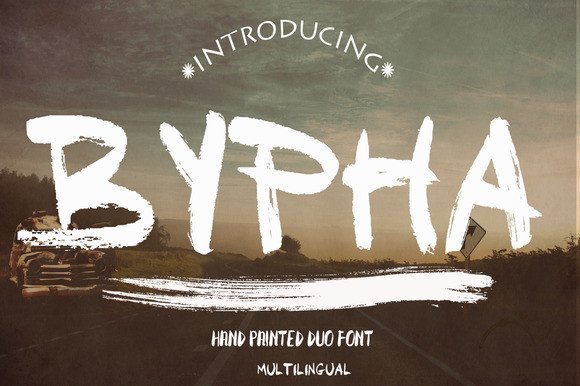
Introducing Bypha Font: The Ultimate Typeface for Bold Designs
Are you tired of using the same old fonts for your designs? Look no further! Bypha Font is here to revolutionize your creative projects with its tough and stylish aesthetic. This versatile typeface is perfect for designers and crafters who want to make a statement with their work. In this article, we’ll dive into the world of Bypha Font and explore its features, uses, and benefits.
A Font with a Personality
Bypha Font is a unique and eye-catching typeface that exudes confidence and attitude. Its bold and rugged design makes it perfect for creating striking logos, posters, and t-shirt designs that demand attention. The font’s distinctive swashes add a touch of elegance and sophistication, making it suitable for a wide range of applications.
Key Features of Bypha Font
- Tough and stylish design: Bypha Font boasts a rugged and bold aesthetic that’s perfect for creating striking designs.
- Swashes for added elegance: The font’s swashes add a touch of sophistication and elegance, making it suitable for high-end designs.
- Versatile and adaptable: Bypha Font can be used for various purposes, including logo marks, t-shirt designs, posters, and more.
- Easy to read: Despite its bold design, Bypha Font is easy to read, making it perfect for body text and headlines.
Uses of Bypha Font
Bypha Font is an incredibly versatile typeface that can be used for a wide range of design projects. Here are some ideas to get you started:
- Logo marks: Create a bold and memorable logo for your brand with Bypha Font.
- T-shirt designs: Design eye-catching t-shirts with Bypha Font’s stylish and rugged aesthetic.
- Posters: Create striking posters that demand attention with Bypha Font’s bold and elegant design.
- Business cards: Add a touch of sophistication to your business cards with Bypha Font’s elegant swashes.
Benefits of Using Bypha Font
So, why should you choose Bypha Font for your design projects? Here are some benefits of using this amazing typeface:
- Unique and distinctive: Bypha Font’s bold and rugged design sets it apart from other fonts, making your designs stand out from the crowd.
- Time-saving: With Bypha Font, you can create stunning designs in no time, thanks to its easy-to-read and versatile design.
- Cost-effective: Bypha Font is an affordable solution for designers and crafters who want to create high-quality designs without breaking the bank.
Tips for Using Bypha Font
To get the most out of Bypha Font, here are some tips to keep in mind:
- Experiment with swashes: Bypha Font’s swashes are a key feature that can add elegance and sophistication to your designs. Experiment with different swash styles to find the one that works best for your project.
- Pair with complementary fonts: Bypha Font pairs well with a range of fonts, from sans-serif to script fonts. Experiment with different font combinations to find the one that works best for your design.
- Use for headlines and body text: Bypha Font is easy to read, making it perfect for both headlines and body text.
In conclusion, Bypha Font is a game-changing typeface that’s perfect for designers and crafters who want to create bold and stylish designs. With its tough and elegant design, swashes, and versatility, Bypha Font is an excellent choice for a wide range of design projects. Whether you’re creating logos, t-shirt designs, posters, or business cards, Bypha Font is sure to make your designs stand out from the crowd.